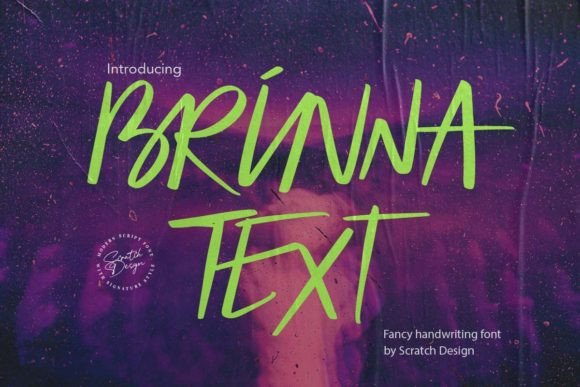
The Quest for the Perfect Font: Discovering Brinna Text
I still remember the frustration of working on a design project, hours spent searching for the perfect font that would bring my vision to life. My client wanted a bold, expressive font with a personal touch, but I was coming up empty-handed. That was until I stumbled upon Brinna Text, a game-changing font that exceeded my expectations. In this article, I’ll share my experience with Brinna Text, its features, and how to make the most of this amazing font.
A First Impression: What Makes Brinna Text Special
Brinna Text is an all-caps font with a unique twist: it’s designed to mimic handwritten text with small-sized brushes. The result is a beautiful, expressive font that’s perfect for headlines, branding, and creative projects. But what really sets Brinna Text apart is its attention to detail. The font comes with:
- Alternates encoded for capital letters, allowing for varied and interesting text arrangements
- Lowercase letters that offer a different take on the font’s style
- Ligatures, numbers, punctuation marks, and multi-language support for added versatility
- ✨ Expressive and dynamic: Brinna Text adds a personal touch to any design project
- ✅ Ease of use: The font is easy to read and works well in various design contexts
- 💥 Highly versatile: From posters and banners to websites and stationery, Brinna Text adapts to any design need
As for quirks or limitations, there are a few to keep in mind:
- 🤔 Glyphs can be overwhelming: With so many alternates and ligatures, it can take time to get familiar with the font’s capabilities
The Story Behind Brinna Text: Designer Inspiration
While the exact story behind Brinna Text might be unknown, it’s clear that the designer aimed to create a font that captures the essence of handwriting with a personal touch. Inspired by the imperfections and uniqueness of handwritten text, Brinna Text brings a fresh and dynamic feel to any design project.
| Font Name | Brinna Text Font |
| Author | Scratch Design |
| What is Brinna Text best used for? | Brinna Text is ideal for design projects requiring a handwritten style font, such as headlines, branding, stationery, posters, banners, and websites. |
| Does Brinna Text support OpenType features? | Yes, Brinna Text comes with OpenType features, including alternates, ligatures, and more. Using software that supports OpenType is recommended to fully access these features. |
| Is Brinna Text suitable for body text? | While Brinna Text is primarily designed for headlines and display text, its readability makes it suitable for short paragraphs of body text. For longer texts, a more traditional font might be more appropriate. |